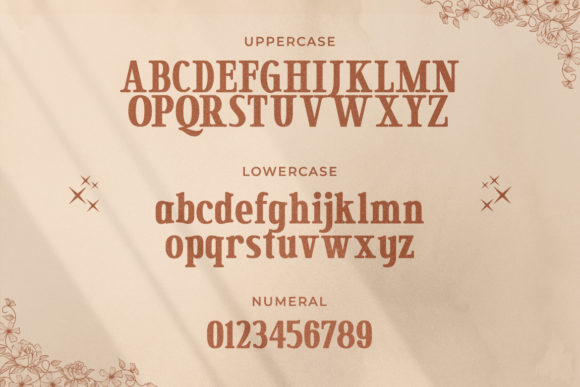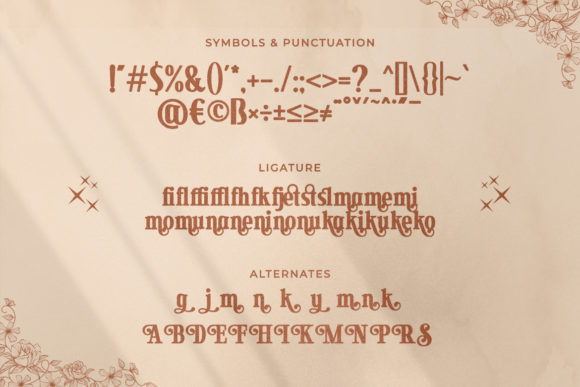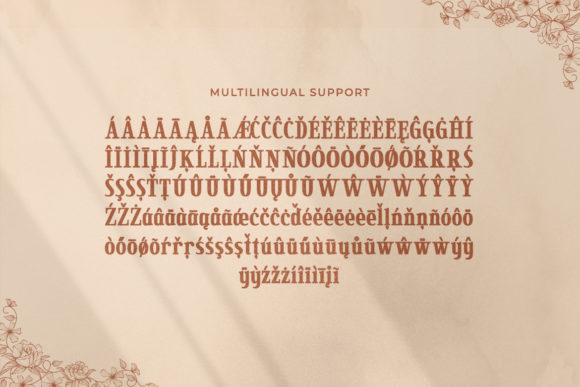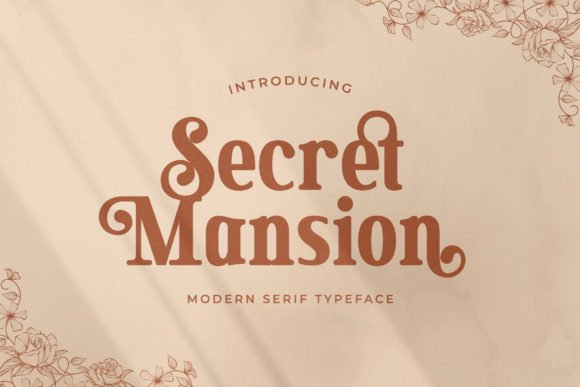
Introduction to Secret Mansion Font
Secret Mansion is an elegant serif font that blends traditional influences into a contemporary aesthetic.
Neatly crafted, this font will allow you to achieve an exquisite, yet subtle look and maximum versatility .
Key Features of Secret Mansion Font
Why Choose Secret Mansion Font?